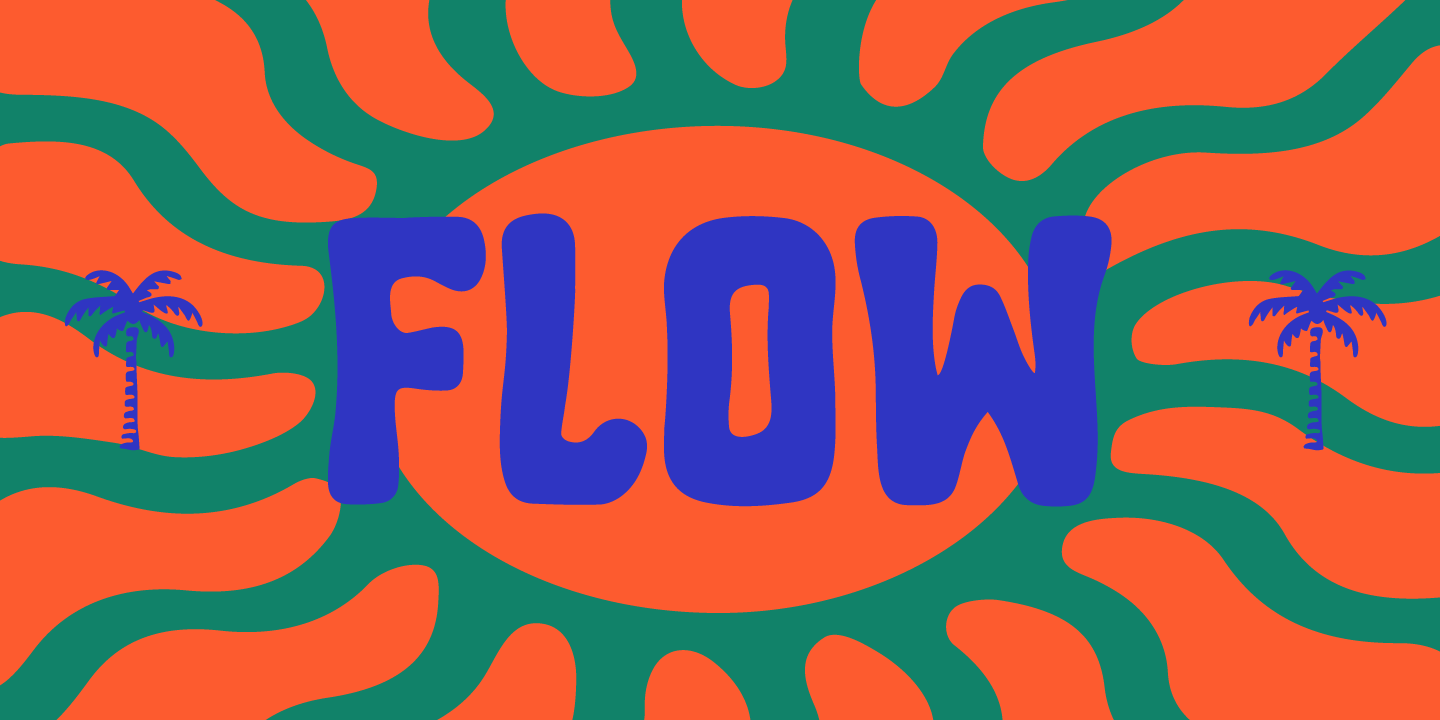
Looking to infuse your designs with a sense of smooth motion and contemporary elegance? Flow Font Free Download offers an excellent opportunity to explore a typeface designed for fluidity and modern appeal. It's important to remember, however, that while a Flow Font Free Download might be available for personal and testing purposes, a commercial license is required for any professional or revenue-generating projects. This ensures legal compliance and provides essential support to the talented font designers.
The Flow Font is exceptionally versatile and well-suited for projects that demand a dynamic, organic, or gracefully moving aesthetic. Its often fluid lines, soft curves, or subtly connecting strokes make it an excellent choice for sports branding, fitness apparel, and active lifestyle marketing. It's ideal for animated titles, video intros, and digital advertisements where a sense of progression and energy is desired. Furthermore, consider Flow Font for music album art, dance studio branding, and social media graphics that aim to convey rhythm and vitality. Its distinctive character also lends itself well to water-themed designs and wellness product packaging.
What makes the Flow Font so exciting is its inherent ability to capture a sense of movement and effortless grace. It often features letterforms that feel naturally connected or have a subtle sway, setting it apart from rigid typefaces. This characteristic allows it to communicate a sense of ease, dynamism, and modern sophistication, making your message resonate with an audience that appreciates fluidity and visual harmony. It’s a font that doesn't just display text; it embodies a seamless experience, adding a layer of captivating artistry and contemporary charm to any creative endeavor. Its distinctive aesthetic ensures your work will stand out with a memorable and energetic presence.
The Flow Font family typically offers a range of weights or stylistic variations to enhance its versatility. You'll often find a well-crafted Regular weight, which might be complemented by specific bold or light variations to provide typographic contrast and emphasize different design elements. Due to its dynamic nature, the family might also include unique ligatures, stylistic alternates, or swashes that enhance its flowing quality and provide additional creative options for crafting truly unique and expressive typographic compositions.